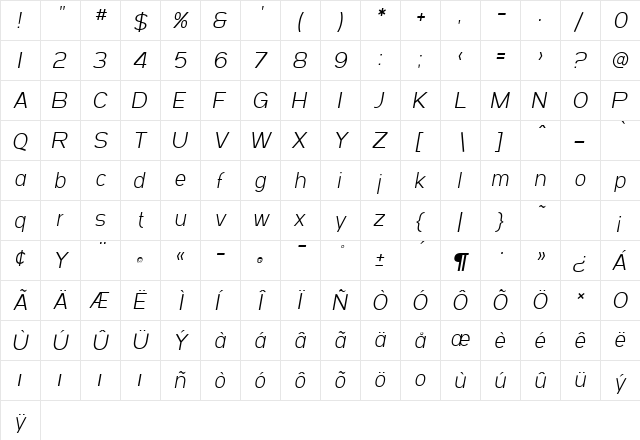
SF Arborcrest Light Oblique Font Preview
SF Arborcrest Light Oblique
Design Context for SF Arborcrest Light Typeface
SF Arborcrest Light offers clean, dependable letterforms without strong stylistic allegiance, making it a practical choice for designers who need flexibility. The dynamic lean of this cut emphasises speed and emphasis in any layout. Its slender proportions lend an understated elegance to any composition.
Pro Tip: Try SF Arborcrest Light for annotation and caption copy alongside an upright companion — the contrast in angle creates a dynamic but ordered typographic system.